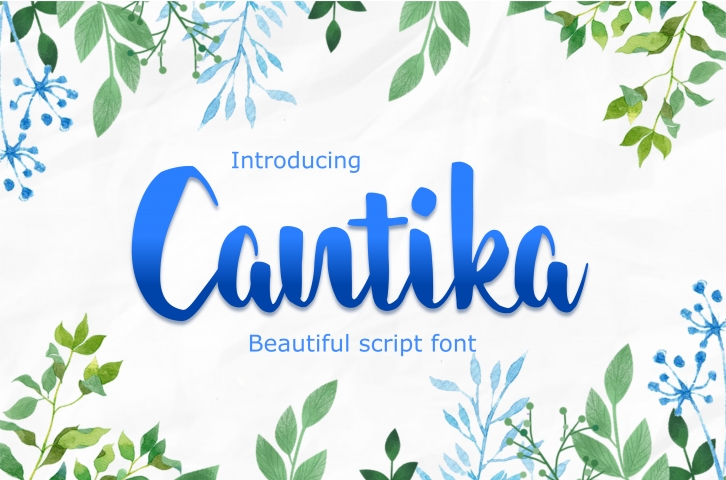
Cantika - Beautiful Script Font Download
Cantika is a beautiful font suitable for weddings such as invitations or souvenirs. Cantika is also suitable for use for other purposes that require an attractive appearance